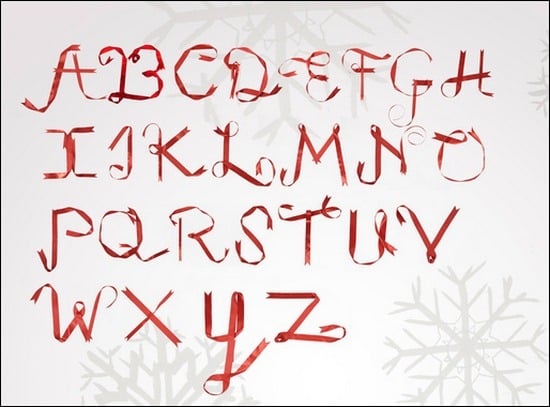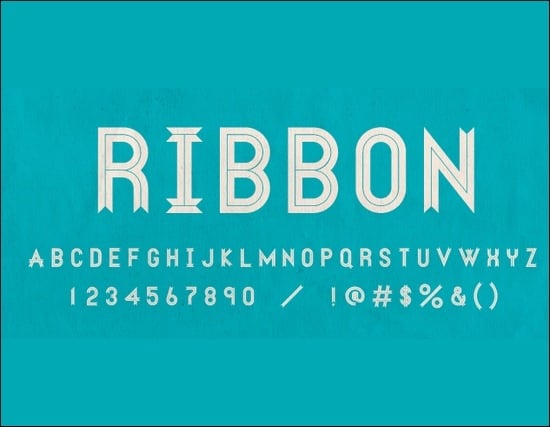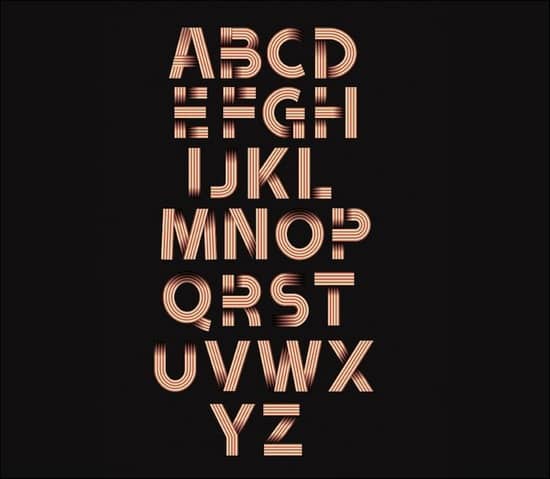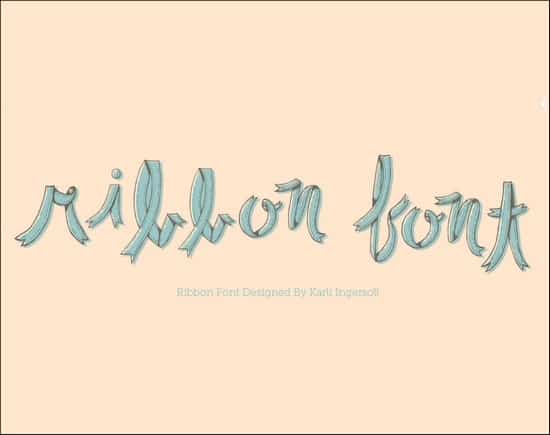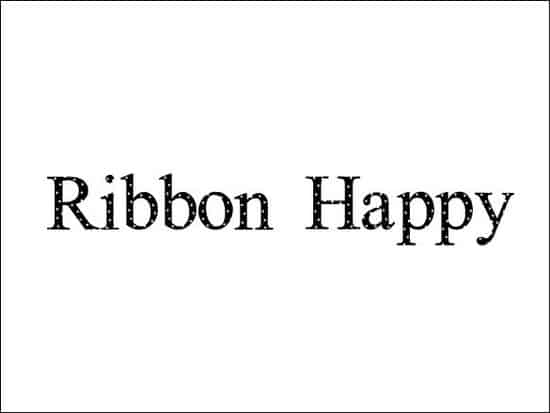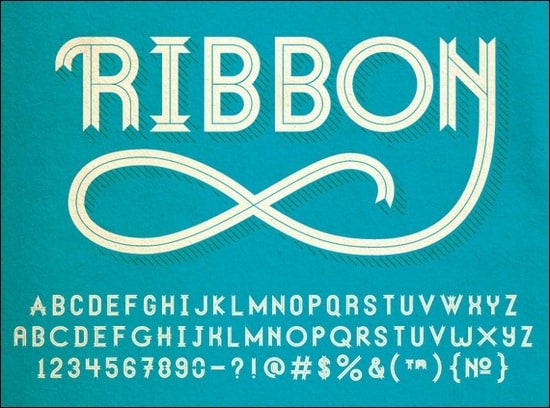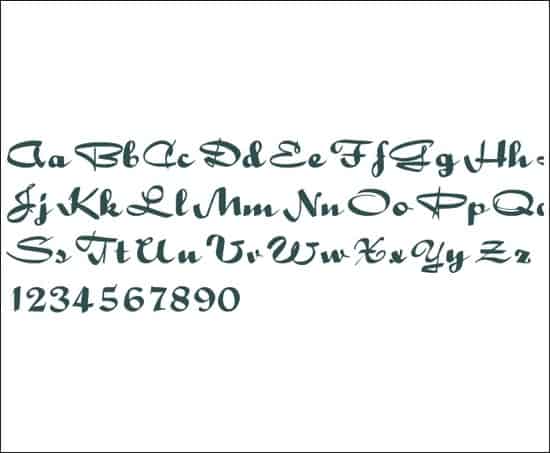
If you are looking for high quality ribbon fonts and inspiration on what fonts to use for your next project, perhaps this post will help you. We admire great fonts and so are most creative people. The most admirable of these fonts are those that are unique and have their own personality.
We have published posts before covering different font types such as the 3D fonts, Gothic, Grunge and much more. There are also various articles online about comic fonts, cartoon fonts, sci-fi fonts and even hand drawn fonts. Some fonts are ideal for headlines and titles while others are great for logo design, product packaging or posters. In fact, we can find fonts online for any project type if we do some research.
In our post for today we are going to concentrate on eye catching ribbon fonts, which you can use to add a classic touch, as well, as some nice curves to your design. Ribbon fonts are not something that is used by designers regularly. However, with some designs, these fonts are first class. Some of the examples we have listed in this post can be downloaded while others are only for inspiration. Go ahead and browse on the entire list to see what other designers have come up with.